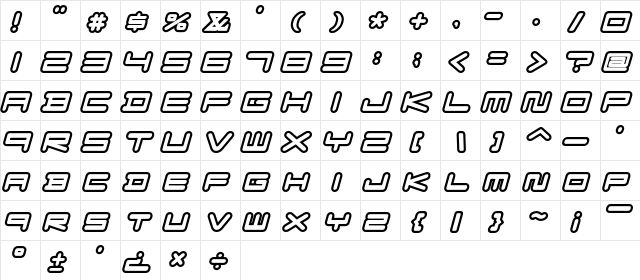
F-Zero GX Venue Font Outlines Italic
Design Context for F-Zero GX Venue Font Outlines Typeface
F-Zero GX Venue Font Outlines is built around its visual character rather than neutral utility — its distinctive forms are designed to make an impression at display sizes. The dynamic lean of this cut emphasises speed and emphasis in any layout.
Font Pairing: Pair with a clean neutral sans-serif for body copy to let F-Zero GX Venue Font Outlines's character lead without overwhelming the composition.
Pro Tip: Use F-Zero GX Venue Font Outlines exclusively at display sizes — it was designed to be seen, not read at length. Let a neutral companion handle body copy.